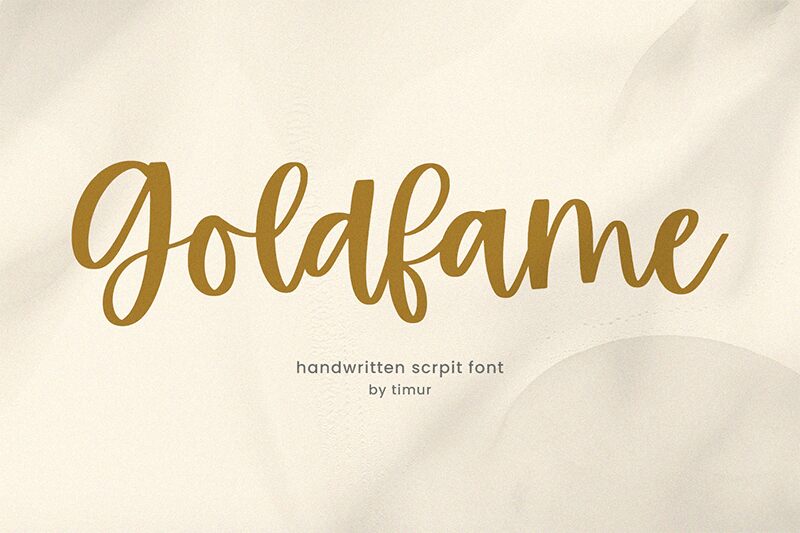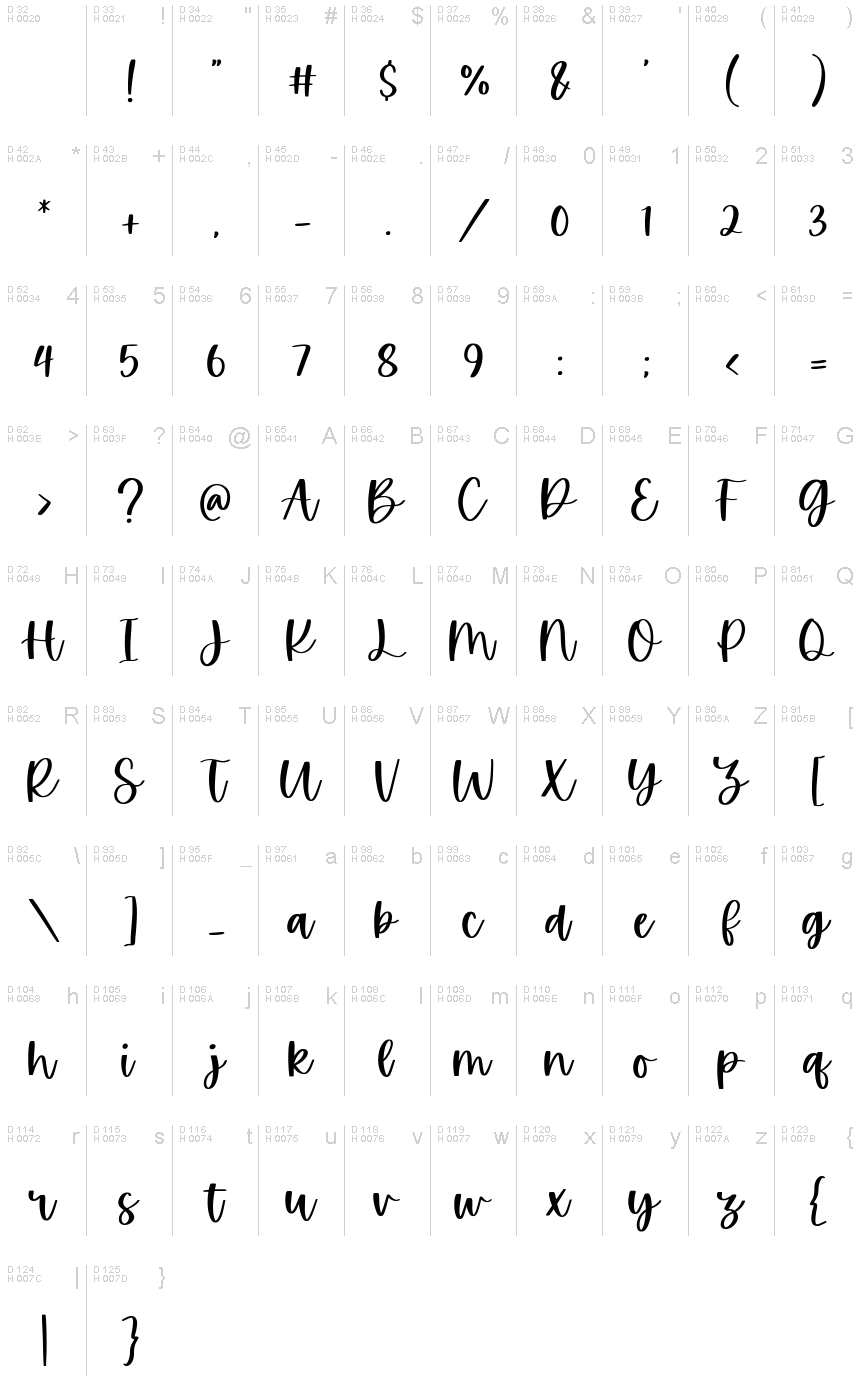
Goldfame
Goldfame, a creation by Timur Type, is a font that exudes personality and charm with its handwritten style. It captures the spontaneity and individuality of ink on paper, making each character feel as if it were thoughtfully scribed by hand. The fluid strokes and varying thicknesses suggest a sense of elegance and creativity, perfect for projects that require a personal touch.
Its aesthetic appeal lies in the blend of casual flair with sophisticated curves, making it versatile for an array of design contexts. Goldfame shines in branding materials, invitations, and product packaging where a bespoke feel is desired. Its distinct style invites designers to impart an intimate vibe to their creations without sacrificing refinement or readability.